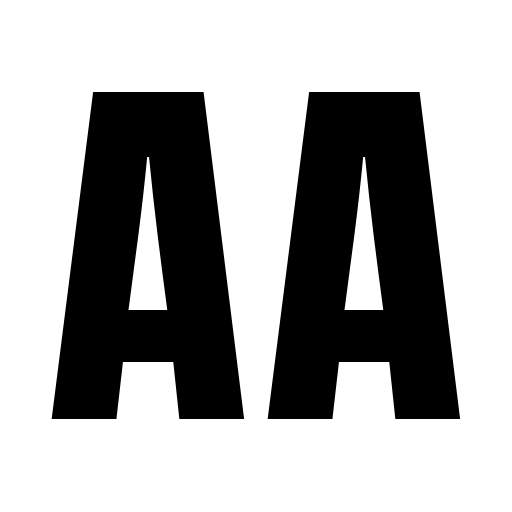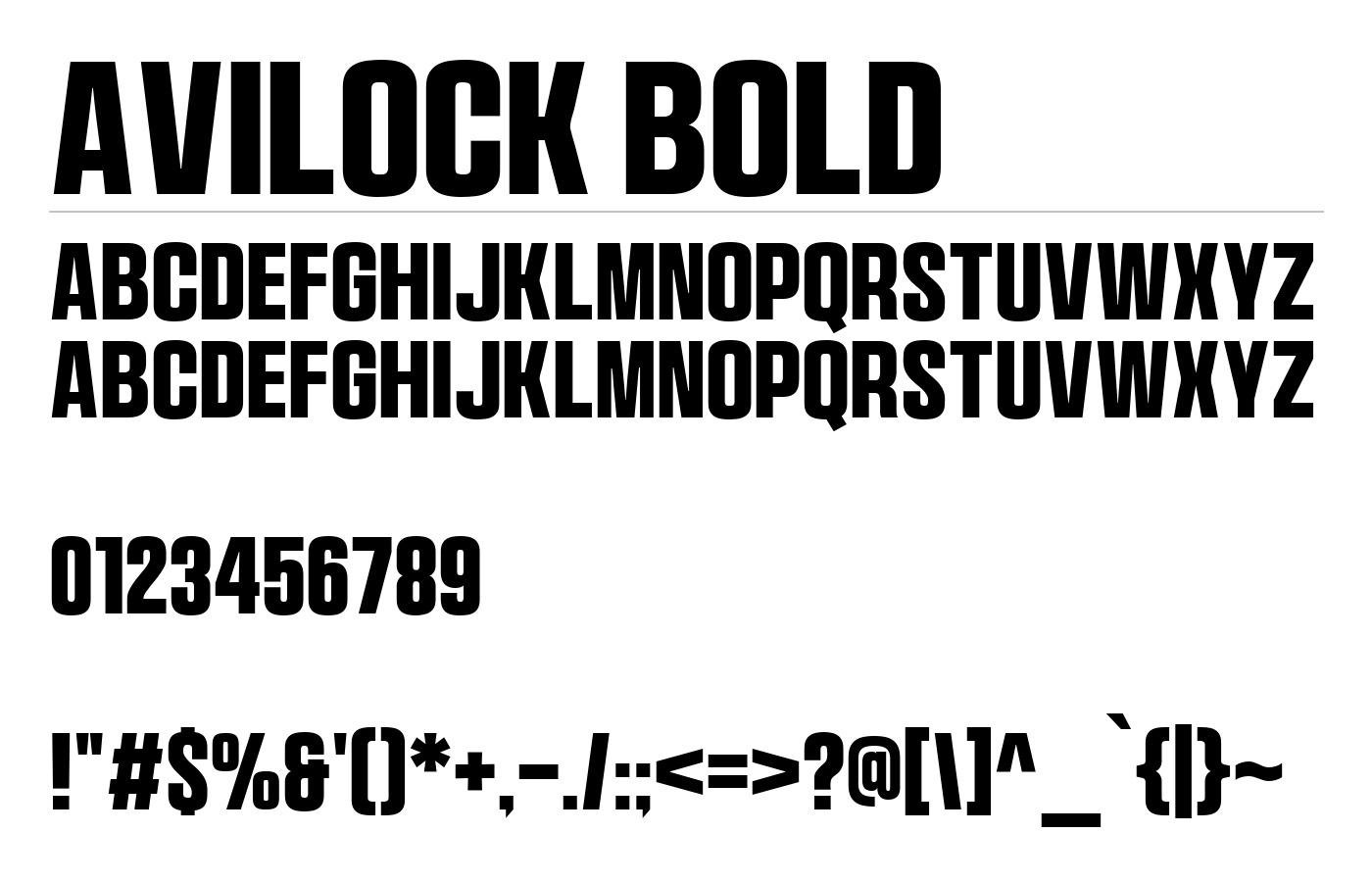
Avilock Bold is a strong, condensed sans serif font with a modern and industrial feel. Its bold weight, compact width, and clean geometric shapes make it ideal for impactful headlines, logos, and branding that demands attention and confidence. This font works best in settings needing a bold, assertive tone such as advertising, posters, and packaging, where clarity and presence are essential.
Avilock Font
About Avilock Font
| Font family | Avilock Font |
| Designer | Toni Setiawan |